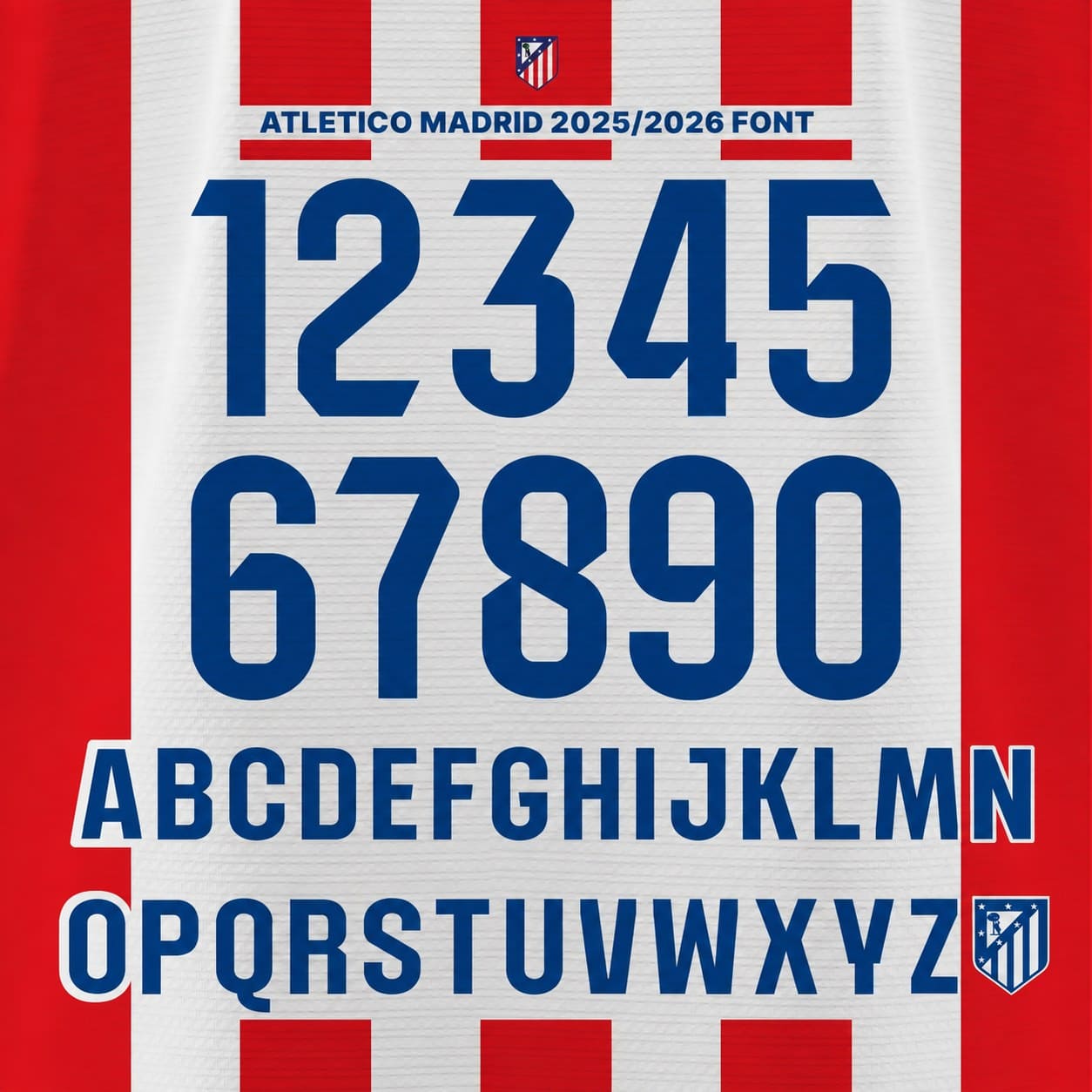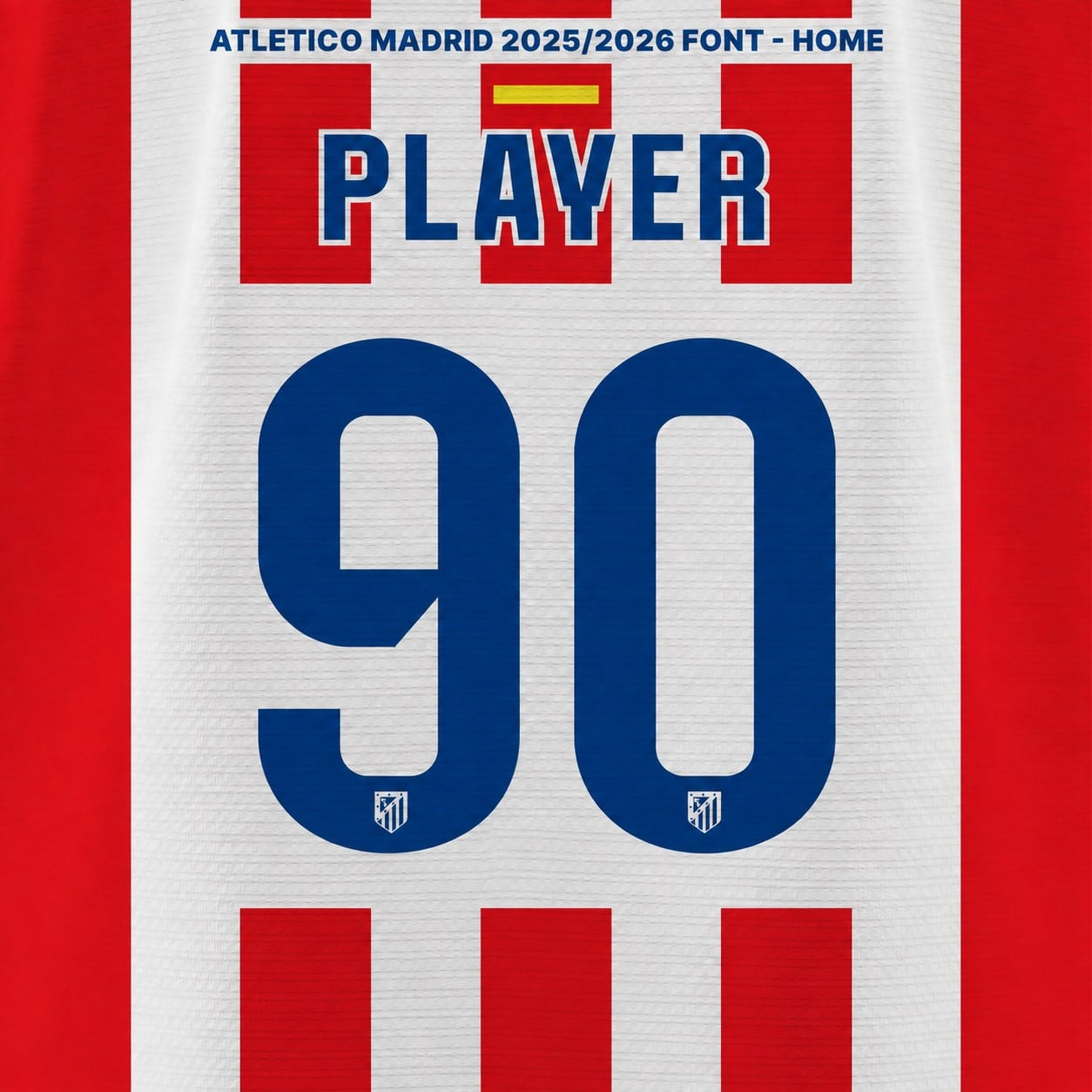
Atletico Madrid 2025/26 Home Font Kit – Full A–Z & 0–9 Set
Complete Atletico Madrid 2025/26 home font set — every letter and every number in one kit, in the season’s home lettering style, blue colourway as shown.
• Full set included: all letters A–Z + all numbers 0–9, exactly as shown
• Fine crest detailing inside the numbers